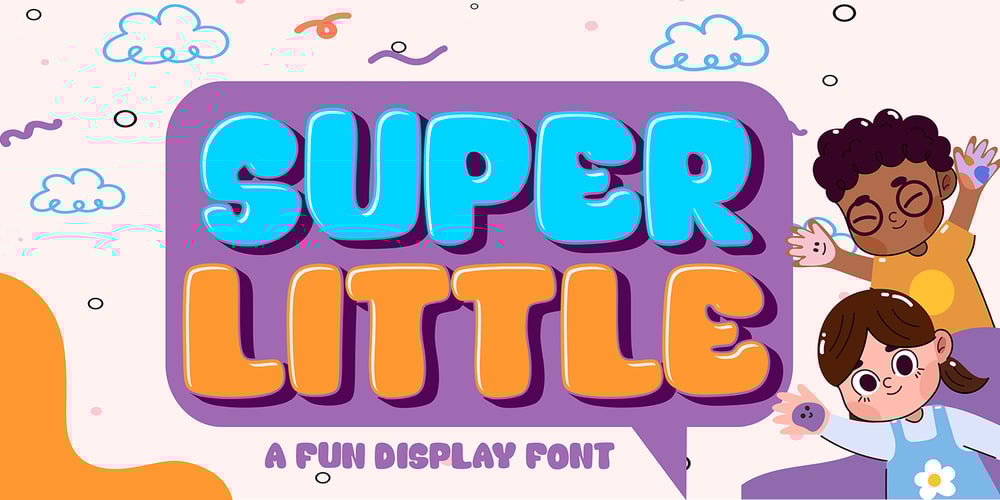
Super Little Shadow Font Family was designed by Sipanji and published by Sipanji21. Super Little Shadow contains 3 styles and family package options. Super Little – A Fun Display Font With Shadow Decoration inside. It will elevate a wide range of design projects to the highest level, be it branding, headings, wedding designs, invitations, signatures, logotype, wall art illustration, apparel, labels, and much more!